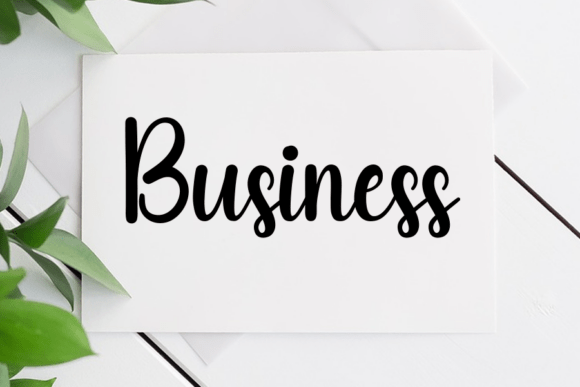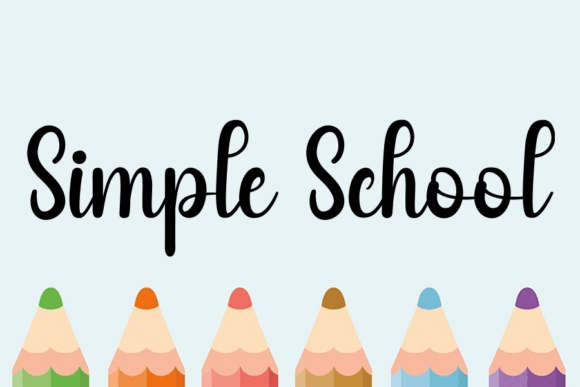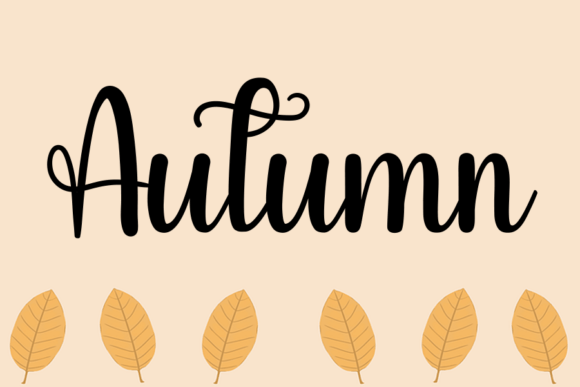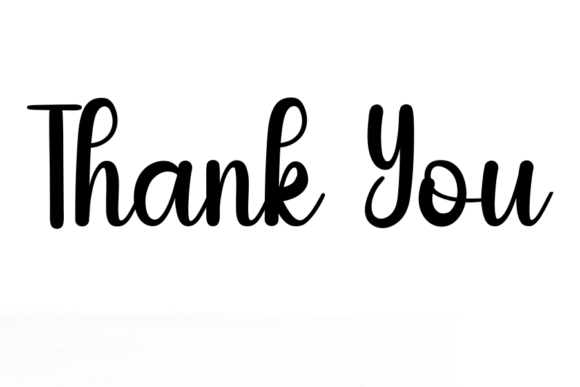
The Perfect Script for Your Next Design Project
Have you ever found yourself scrolling through Pinterest, stumbling upon the perfect logo or invitation, and immediately wondering how you can recreate that magical touch in your own work? For designers, there’s nothing quite like the thrill of discovering a new font that can elevate your projects to the next level. That’s exactly what happened when I stumbled upon the Bulky Font – a sweet and cursive handwritten font that adds a joyful and romantic touch to any design.
As a versatile and elegant font, Bulky Font is perfect for a wide range of design ideas, from branding and logo design to wedding invitations, greeting cards, and fashion lookbooks. Its casual yet sophisticated feel makes it an invaluable asset for designers looking to add a personal touch to their work. With the Bulky Font, you can create designs that are both fancy and elegant, yet still approachable and inviting.
Bulky Font Key Features
- Unique Character Set: Bulky Font features a unique character set that includes a wide range of glyphs, including ligatures, swashes, and ornaments, adding an extra layer of creativity and flair to text.
Bulky Font Review
Overall, I have mixed feelings about the Bulky Font. Here are the things that work well: ✨
- Unique aesthetic: The Bulky Font has a distinctive look that can add character to a design. It’s perfect for creating a bold, playful vibe.
- Good for headings: The font is well-suited for headings and titles, as it’s easy to read and stands out from the surrounding text.
- Customization options: The font offers a range of weights and styles, allowing designers to tailor the look to their specific needs.
- Difficulty with body text: The Bulky Font can be challenging to read in large blocks of text, making it less suitable for body copy.
- Limited compatibility: The font may not be compatible with all operating systems or devices, which can lead to inconsistent display.
- Overuse: The font’s bold, playful style can become overwhelming if overused, so it’s essential to use it judiciously.
Overall, the Bulky Font is a solid choice for designers who want to add a unique touch to their projects. However, it’s essential to weigh its limitations and use it thoughtfully to achieve the desired effect.
Tips for Getting the Most Out of Bulky Font
Use Bulky Font to add emphasis to headings or titles.
Experiment with different font sizes to achieve the perfect level of bulkiness.
Combine Bulky Font with other design elements, such as bold text or colorful backgrounds, to create a visually appealing design.
Bulky Font is commonly used in:
Headings and titles.
Emphasizing important information.
Creating eye-catching designs.
Alternatives to Bulky Font for Designers
Impact Font
Impact font is a sans-serif font that is designed to be bold and eye-catching. It is often used for titles and headings where a strong visual impact is desired. When to use: Use Impact font for bold headings and titles that need to stand out.
Comparison to Bulky Font: While Bulky Font is often used for its thick, block-like appearance, Impact font has a more modern and sleek feel. Impact font is ideal for digital design, whereas Bulky Font is often used in print design.